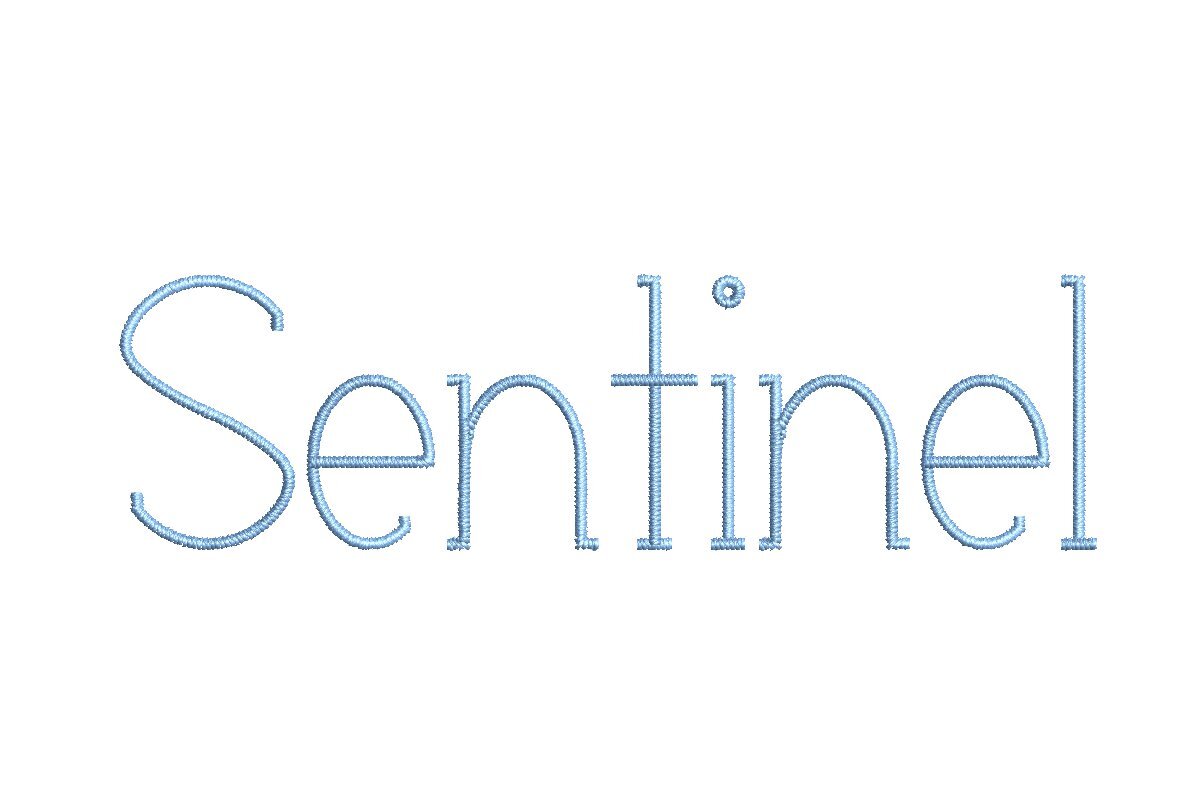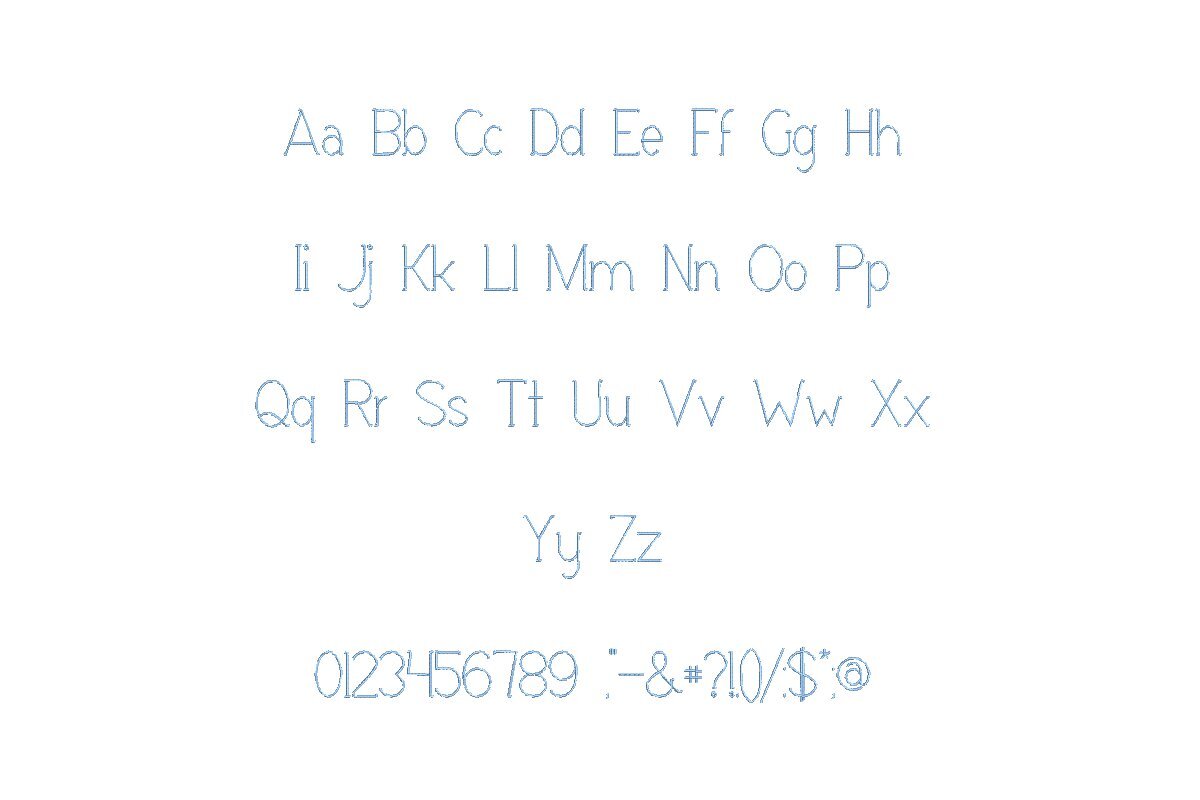
Sentinel ESA Font
Introducing Sentinel ESA Font - Your Guardian of Precision Embroidery! Tailored for seamless compatibility with Wilcom Studio e4.5.6 and Hatch 3 versions and beyond, this font is your steadfast companion in achieving meticulous embroidery designs. Its clean, professional design adds a touch of sophistication to your projects, ensuring precision in every stitch. Achieve professional-grade embroidery with ease, thanks to this user-friendly digitized font. Safeguard your creative vision with Sentinel ESA Font and elevate your Wilcom Studio and Hatch software. Choose precision over the ordinary - upgrade today for an extraordinary embroidery journey. Your designs deserve nothing less than perfection, protected by Sentinel.